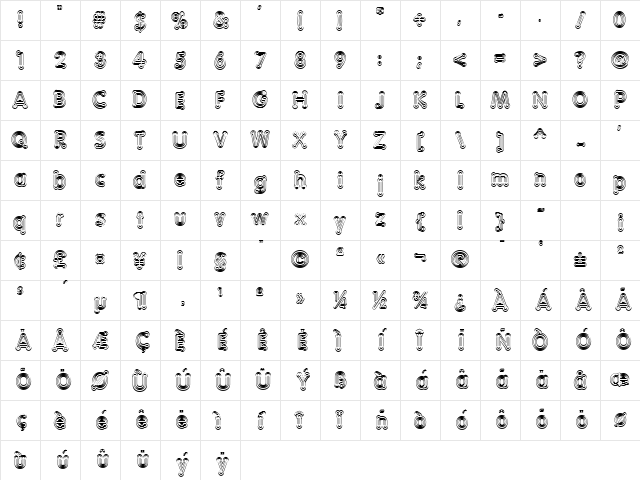
Teazer Normal
Complete Teazer Normal glyph index. Displaying only characters natively supported by Teazer Normal font.
Design Context for Teazer
Teazer is a composed and adaptable typeface that performs quietly and consistently across a wide range of design contexts.